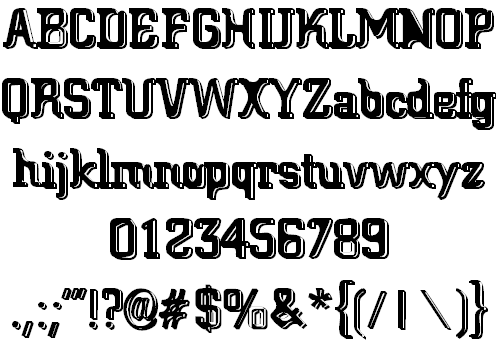
Free Big Blocko Font
Download and enjoy this free big blocko font. Cool typeface to showcase your designs in a modern way. Download this free font from the original source of Font Space. You can create a professional designs with this cool font.